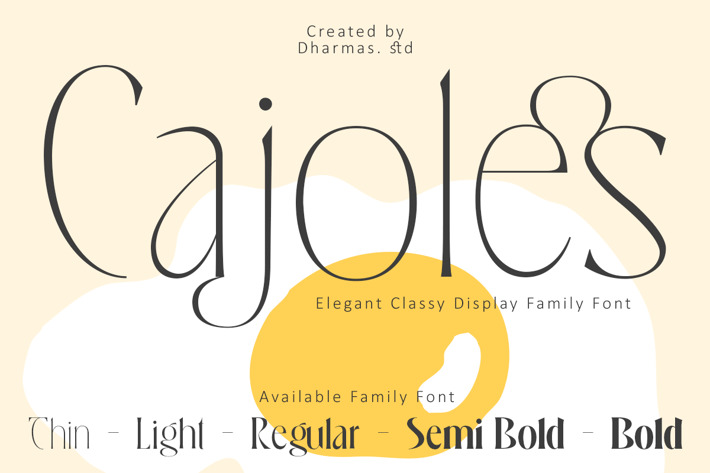
Cajoles - Modern Serif Font
Introducing Cajoles – a brand-new modern typeface family inspired by the elegance of Art Nouveau!
Cajoles draws its charm from the sophistication of 1910s Italian lake posters, blending an Art Nouveau flair with contemporary design. This typeface embodies a perfect balance between eccentricity and delicacy, much like a garden in full bloom.
Cajoles is a display serif typeface, ideal for headlines and short to medium-length texts. It features five weights: Thin, Light, Regular, Semi Bold, and Bold. Cajoles stands out for its nonconformist, romantic, and delicate character, enhanced by extravagant alternates. Its unique curves and refined details create a rhythmic and timeless elegance. The Bold version, with its high contrast, ensures maximum visibility.
Unique Glyph Characters